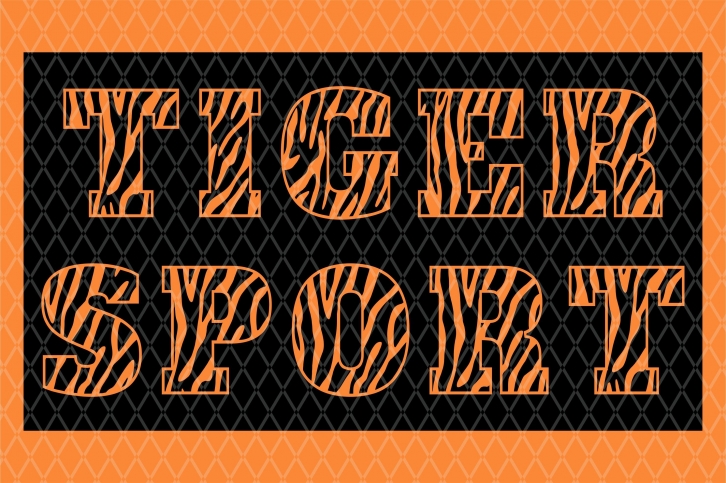
Tiger Sport is a trendy and unique font with an authentic style. It was designed by SVGDesignStudio and it's a great choice for creative people who need such a font. It was released on March 25, 2020 and the file size is 18.97 MB. Tiger Sport will add an organic vibe to any design idea!